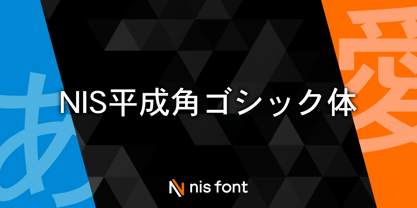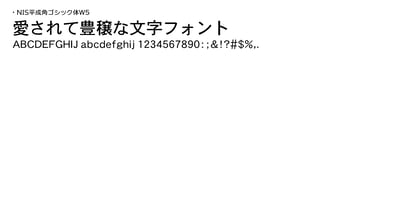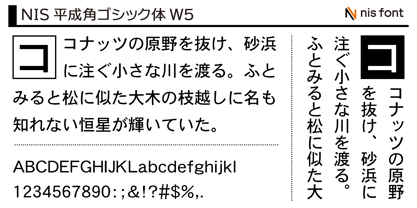
OT-NIS_HEG
The OT-NIS_HEG Font Family was designed by and published by NIS Fonts. OT-NIS_HEG contains 1 styles. More about this family
This square sans-serif typeface was developed by the Font Development and Promotion Center. The proportional values for single-byte Latin characters are based on the standards set by the center. Note: This typeface supports the JIS2004 character set.